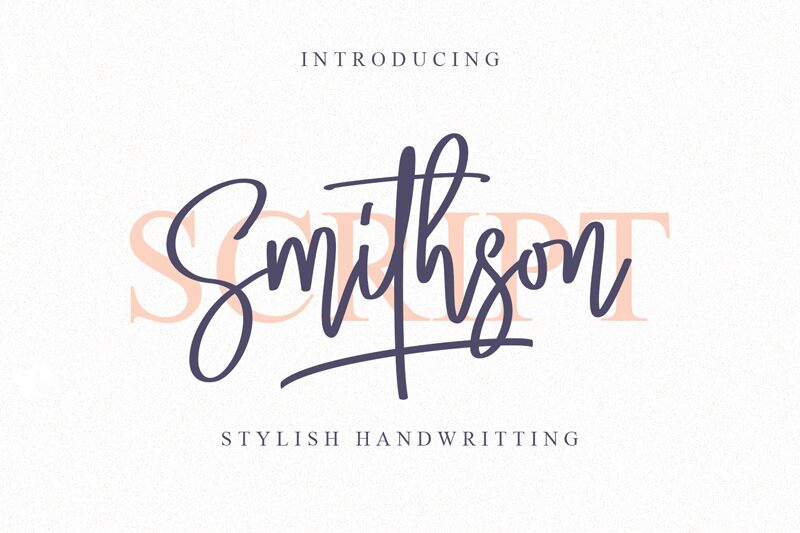
Smithson, a light and narrow handwritten font designed by Letternun, is perfect for adding a personal touch to any project. Use it for everything from creating modern logos to designing stylish wedding invitations.